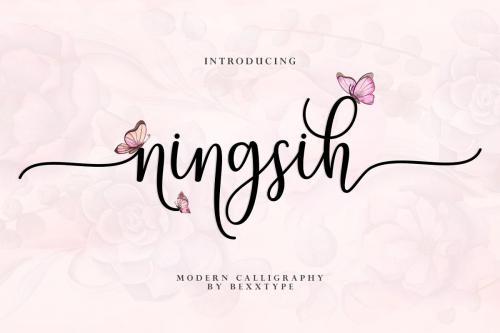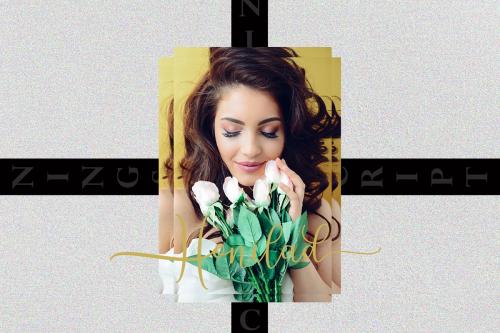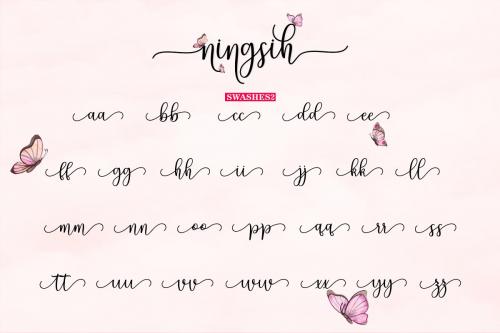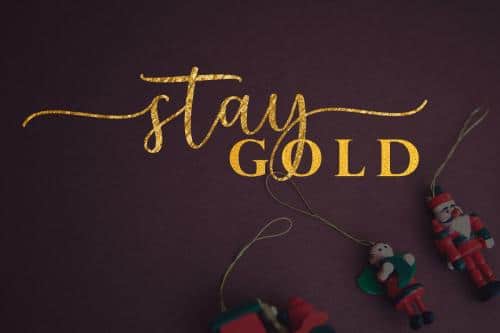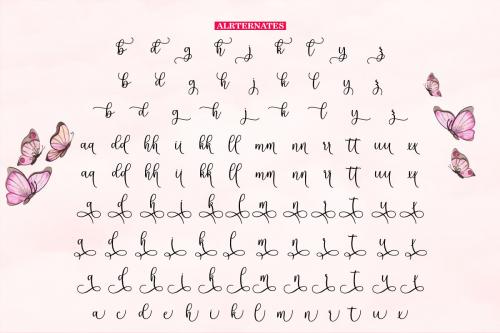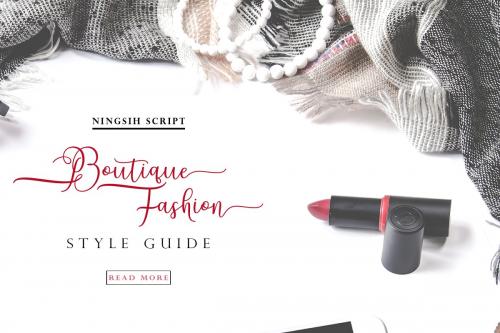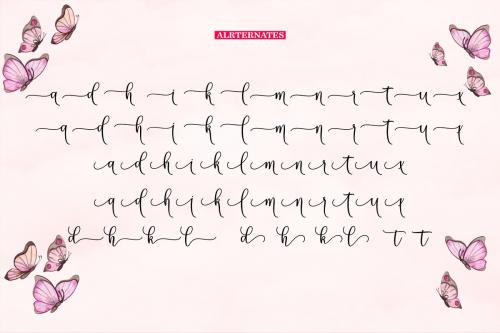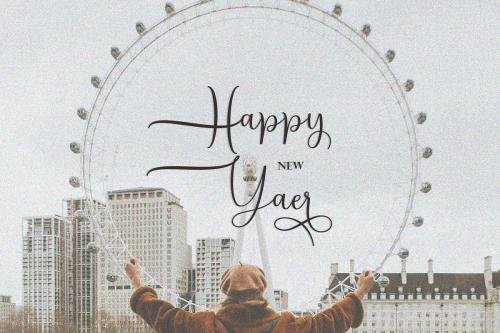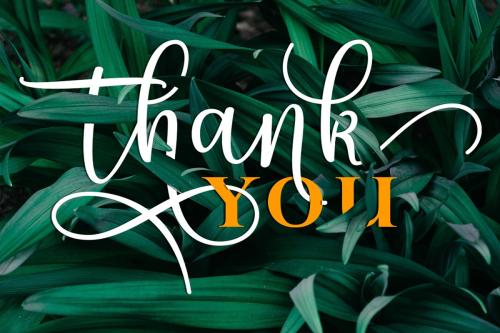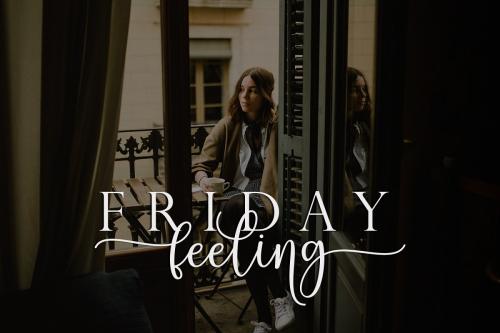
Ningsih Script Font is a new modern calligraphy Typeface Fonts with combines from copperplate to contemporary typeface, classic, beauty and elegant touch.
It’s a new fresh & modern script with a handmade calligraphy style, decorative characters and a dancing baseline! So beautiful on invitation like greeting cards, branding materials, business cards, quotes, posters, and more!!